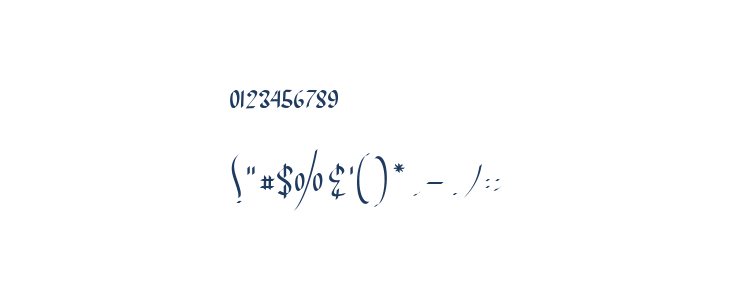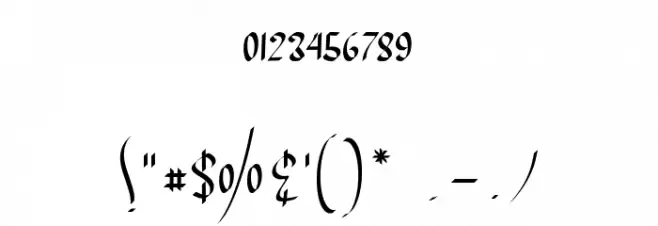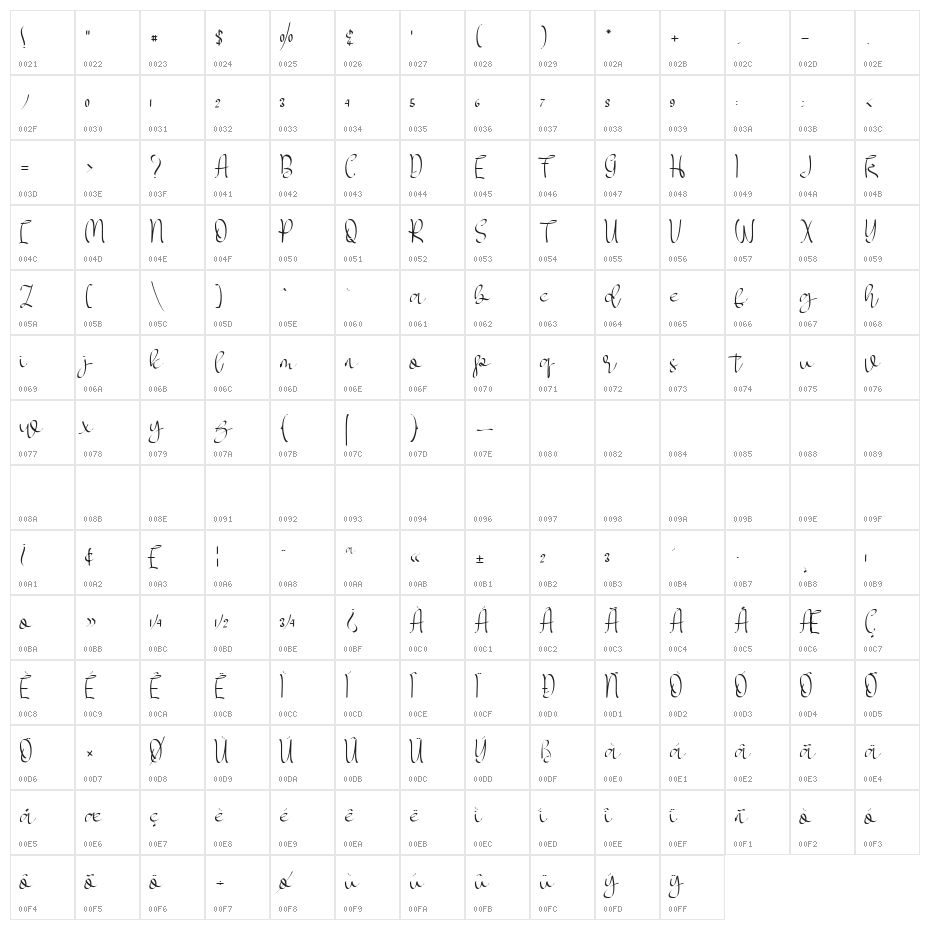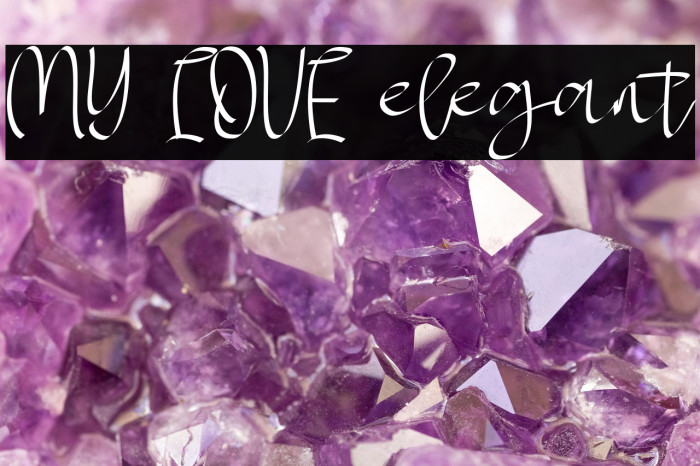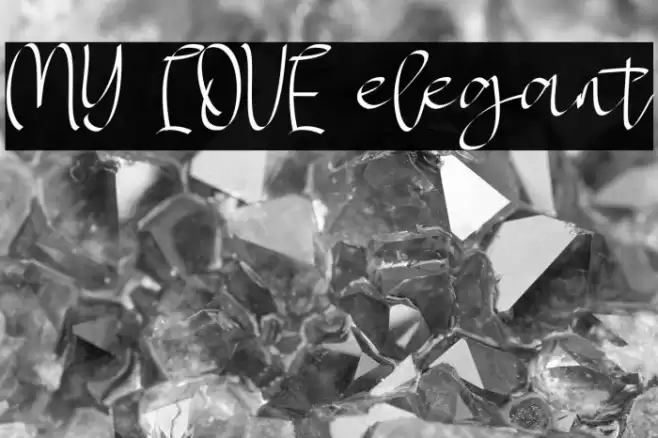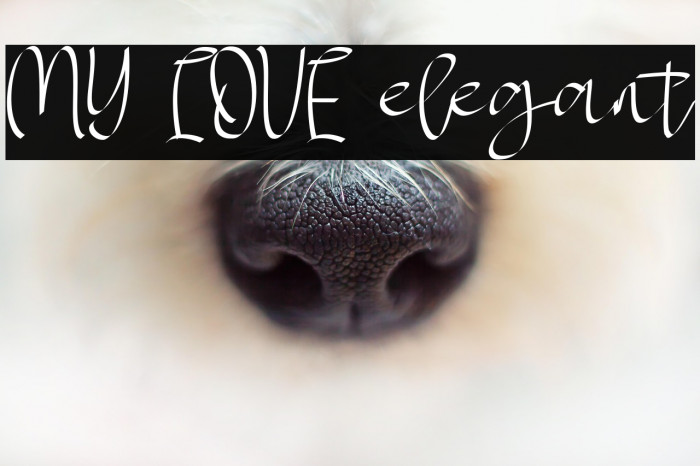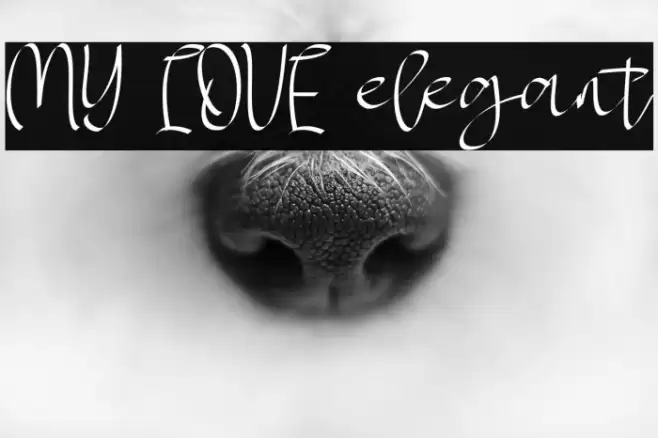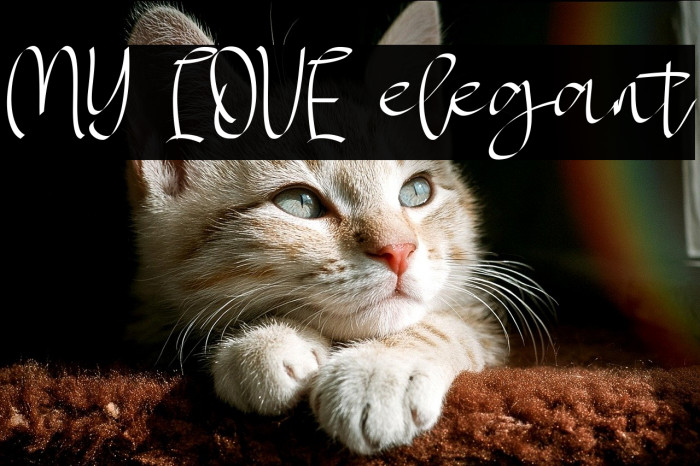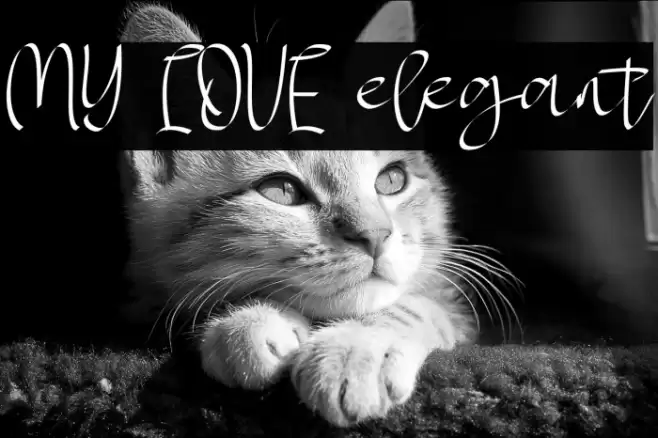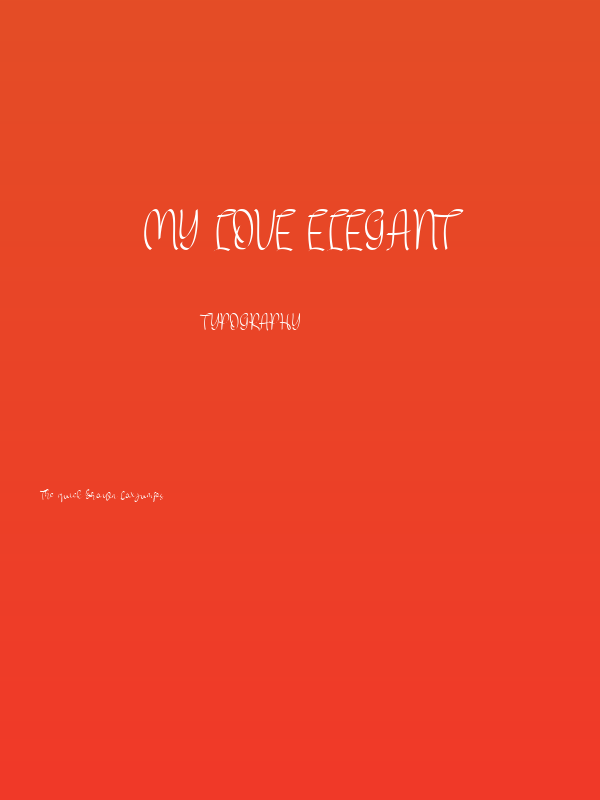
MY LOVE elegant Font
MY LOVE elegant Description
This font exudes elegance and sophistication with its fluid, cursive style. The characters are gracefully connected, creating a seamless flow that is both artistic and readable. The uppercase letters are bold and prominent, while the lowercase letters maintain a delicate balance, adding to the overall charm. The numerals and special characters are crafted with the same attention to detail, ensuring consistency throughout. This font is perfect for projects that require a touch of class and refinement, such as wedding invitations, luxury branding, or high-end product packaging.
| Proposed Projects | Ideal for wedding invitations, luxury branding, and high-end product packaging. |